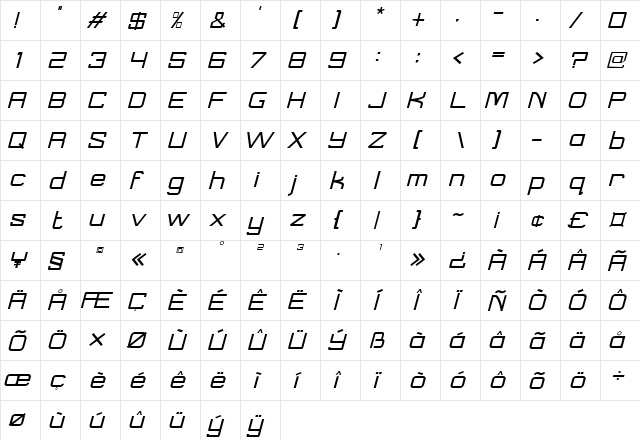
taylor italic Regular
Design Context for taylor italic Typeface
taylor italic offers clean, dependable letterforms without strong stylistic allegiance, making it a practical choice for designers who need flexibility. The dynamic lean of this cut emphasises speed and emphasis in any layout.